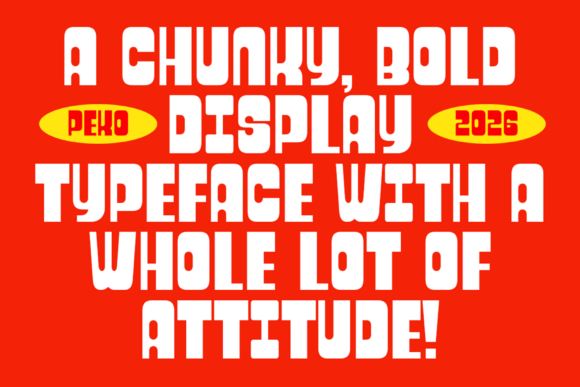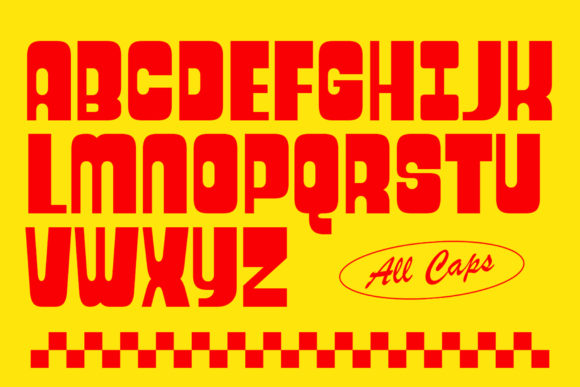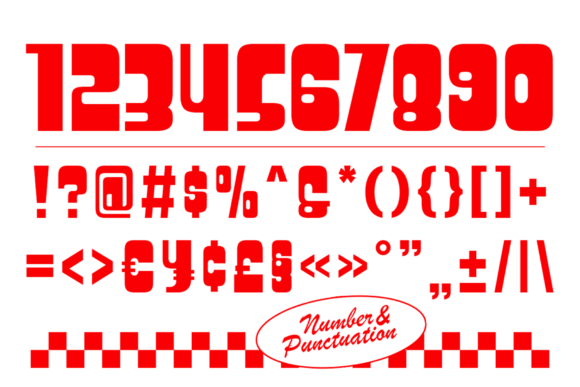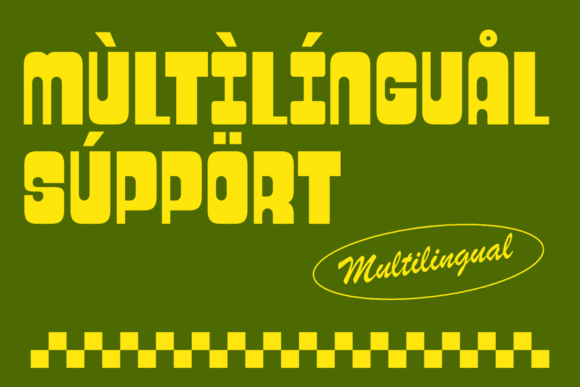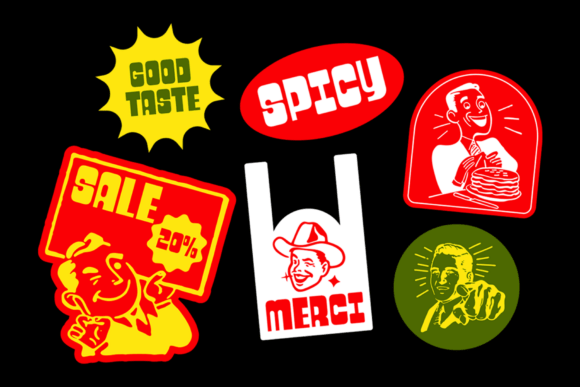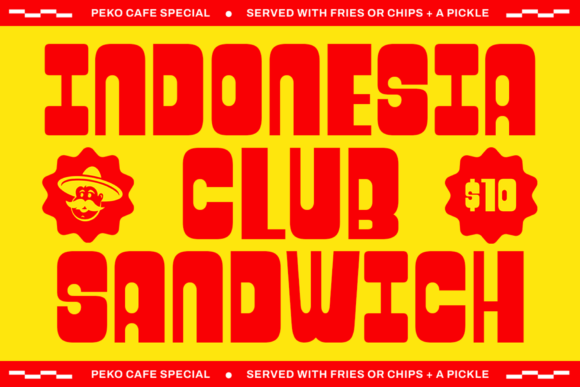
Introduction to Kelpon Font
**KELPON** is a chunky retro display font bursting with bold personality and playful attitude.
Its thick letterforms, compact spacing, and vintage-inspired shapes create a loud visual rhythm that instantly grabs attention **KELPON** feels nostalgic yet fresh — like classic signage reimagined for modern design.